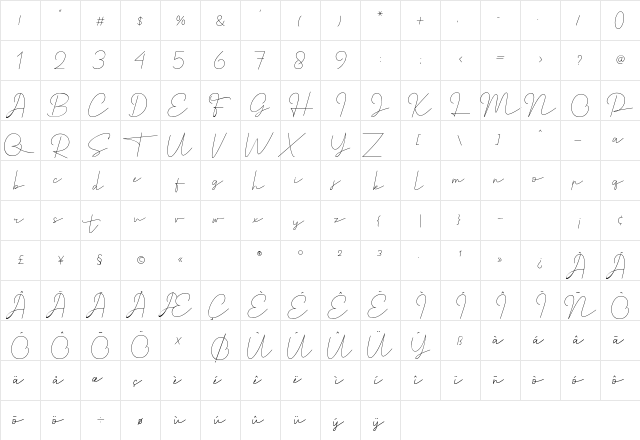
Satrinah Demo Regular
Design Context for Satrinah Demo Typeface
Satrinah Demo is a composed and adaptable typeface that performs quietly and consistently across a wide range of design contexts.